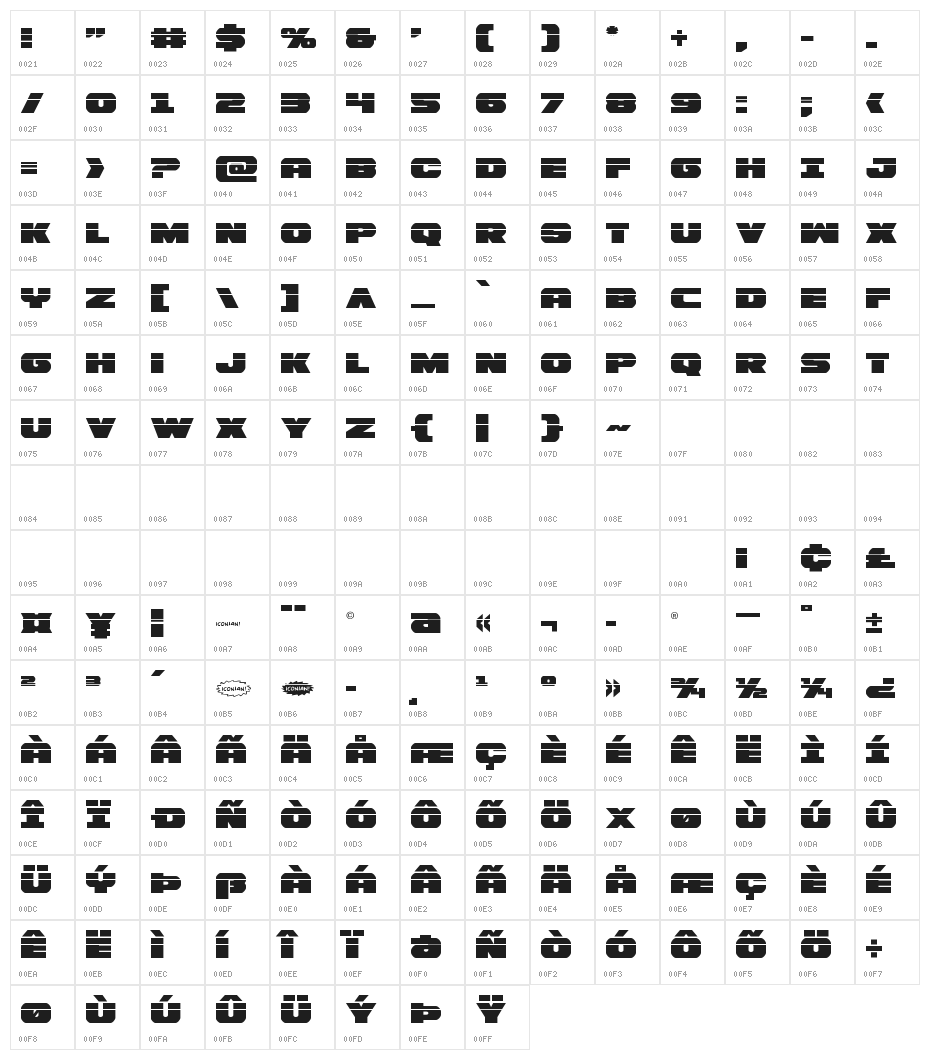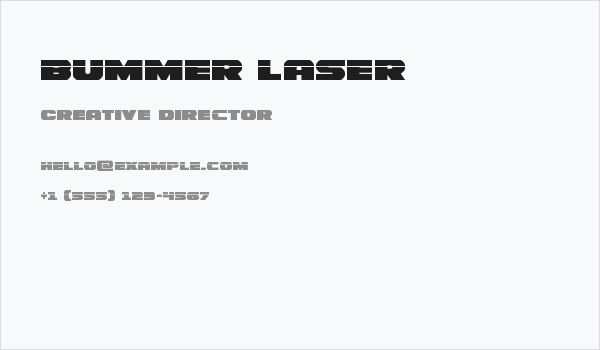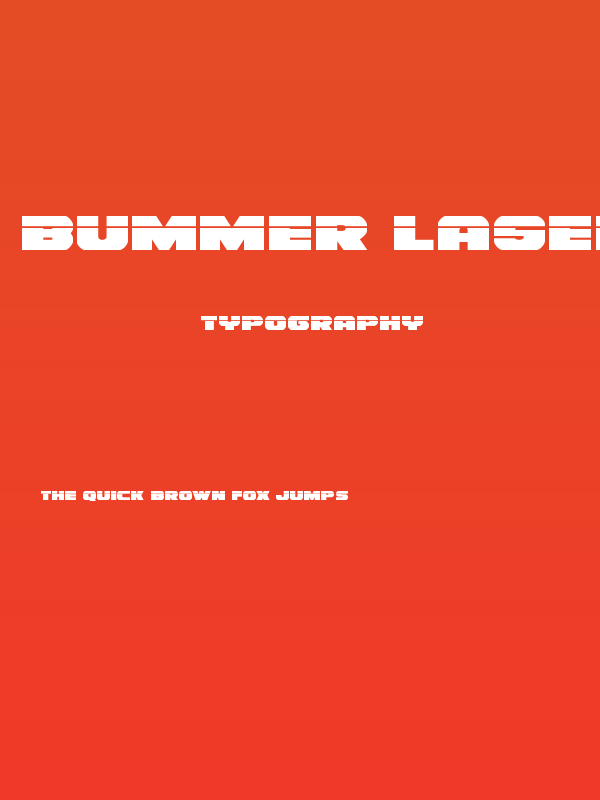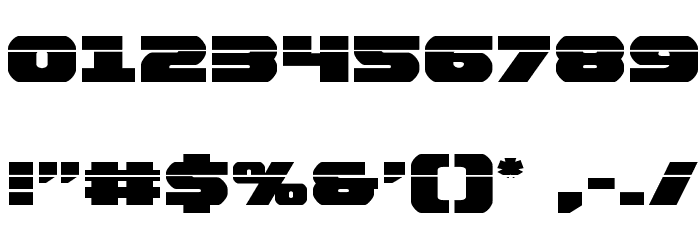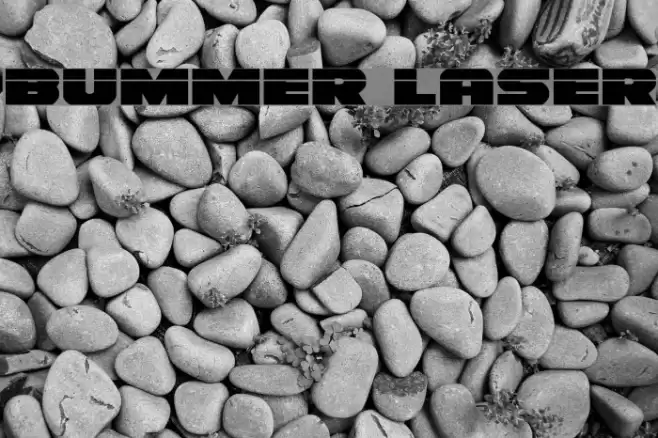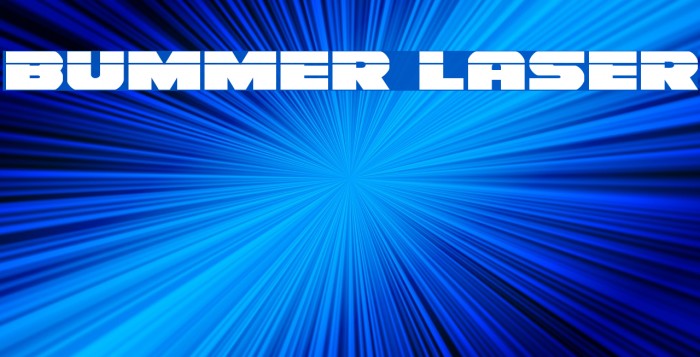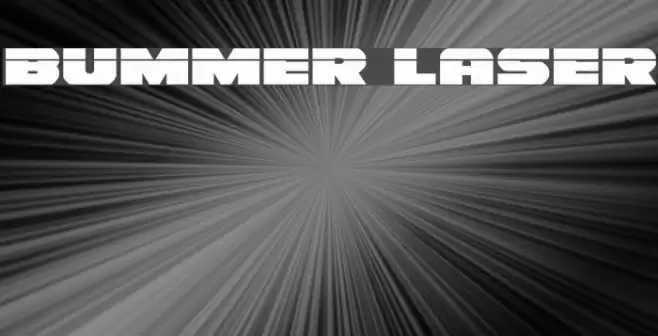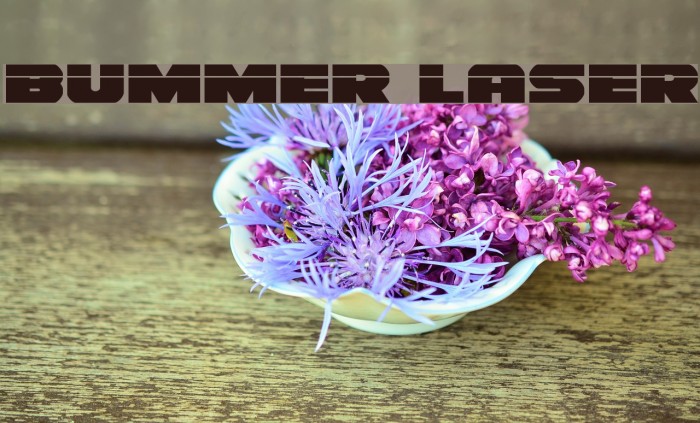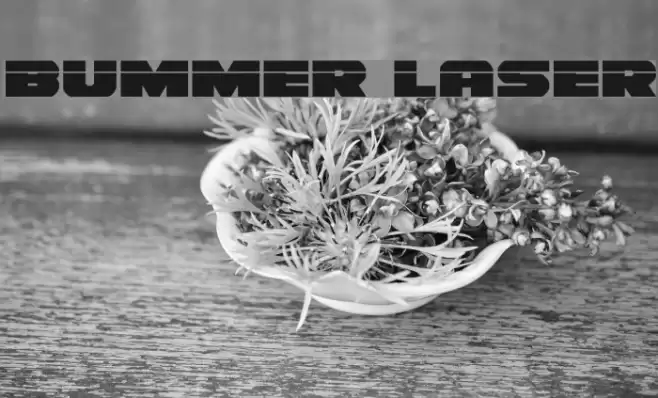
Bummer Laser Font
Bummer Laser Description
This font features a bold and geometric design with a futuristic aesthetic. The characters are constructed with thick, block-like shapes, creating a sense of strength and stability. Each letter is distinct, with sharp angles and a uniform width, contributing to its modern and industrial feel. The font's uppercase and lowercase letters maintain a consistent style, while the numbers and special characters are designed to match the overall theme. The boldness of the font makes it highly visible and impactful, suitable for attention-grabbing designs.
| Proposed Projects | Ideal for projects requiring a strong visual impact, such as posters, logos, video game graphics, and sci-fi themed designs. |